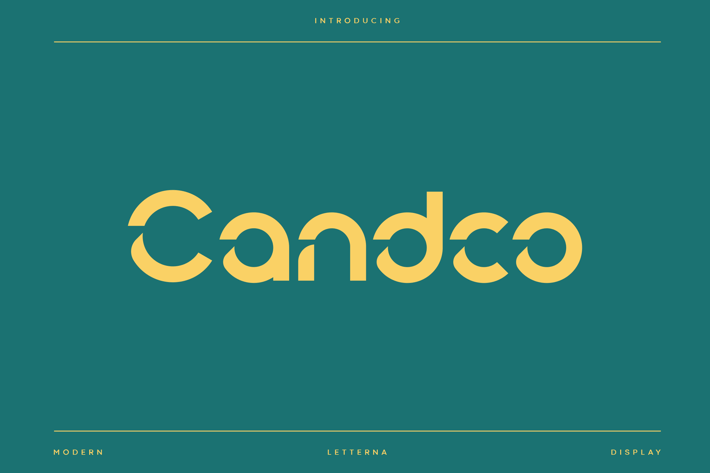
Candco - Modern Display Typeface
Letterna
Candco is modern sans font inspired by modern grotesque with geometric details and deep in industrial design principles. This font is a perfectly choice for any creative endeavor, chic, lifestyle design such as logos, advertisements, watermark on photography, stationery, branding project, display and magazine, invitation, corporate brand, product design, label, business project and many other project with elegant touch.